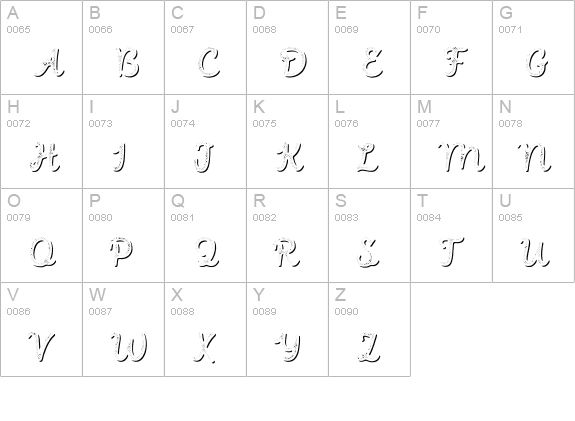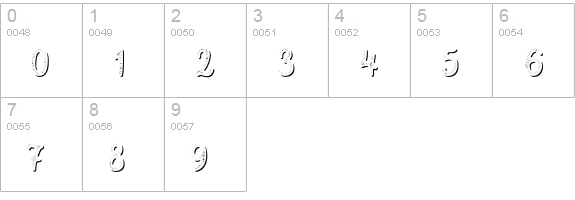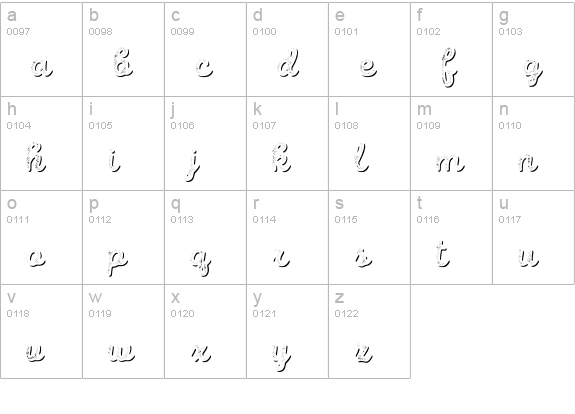
Intro Script B H2 Shade Font Details
Intro Script B H2 Shade font is a stunning and elegant typeface that exudes sophistication and style. Its intricate details and unique design make it perfect for adding a touch of class to any project. This font is freely available to download at FontsMarket.com, allowing you to elevate your designs without any cost. With its graceful curves and exquisite flourishes, Intro Script B H2 Shade font is sure to make a lasting impression on your audience. Whether you're creating invitations, posters, or branding materials, this font will take your work to the next level. Download it now and let your creativity shine with this beautiful typeface.